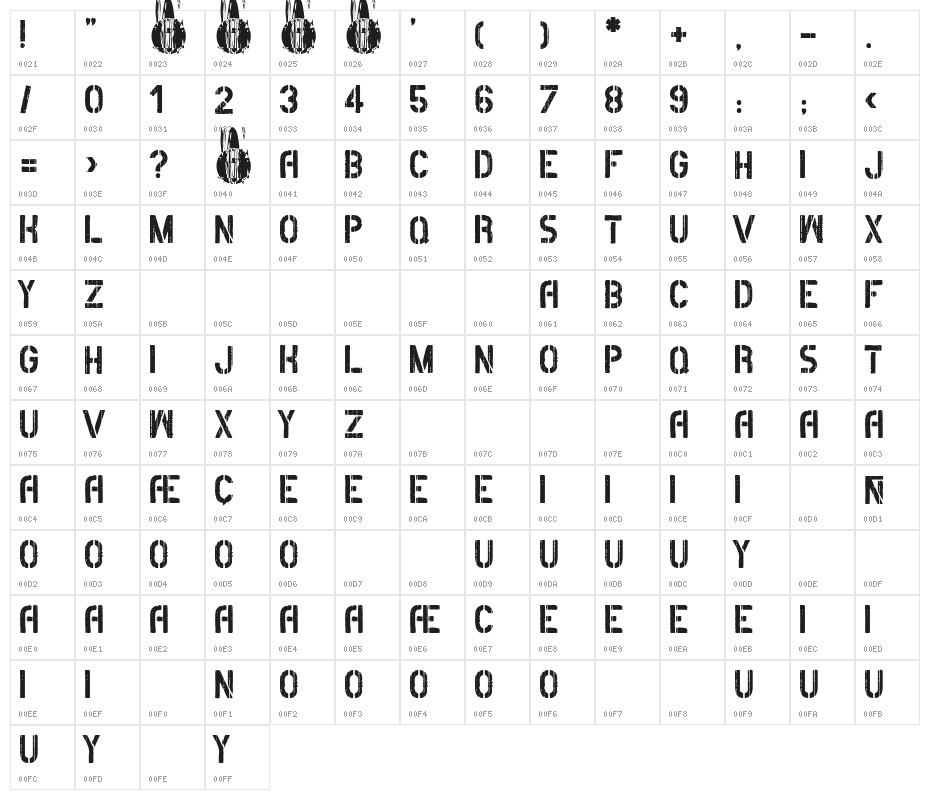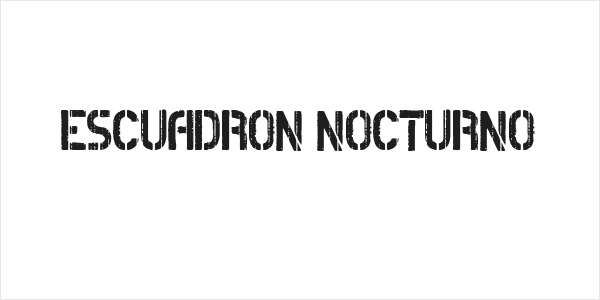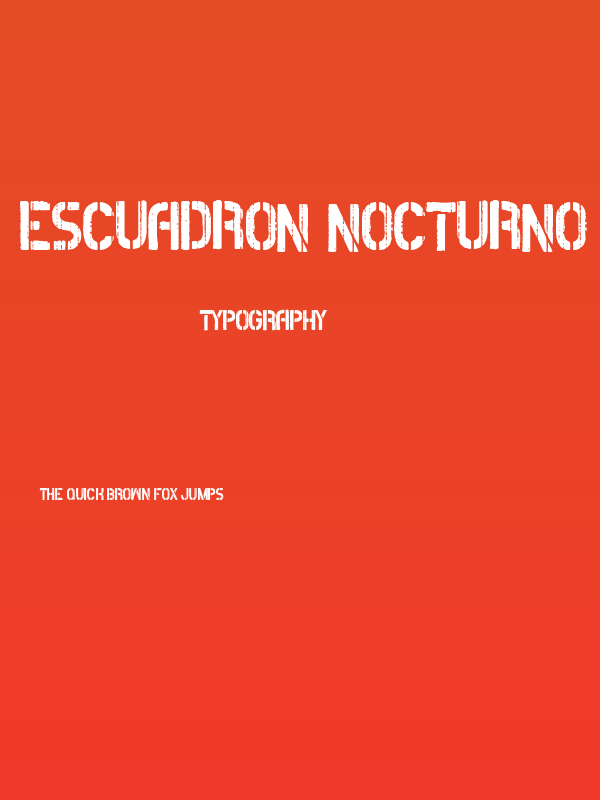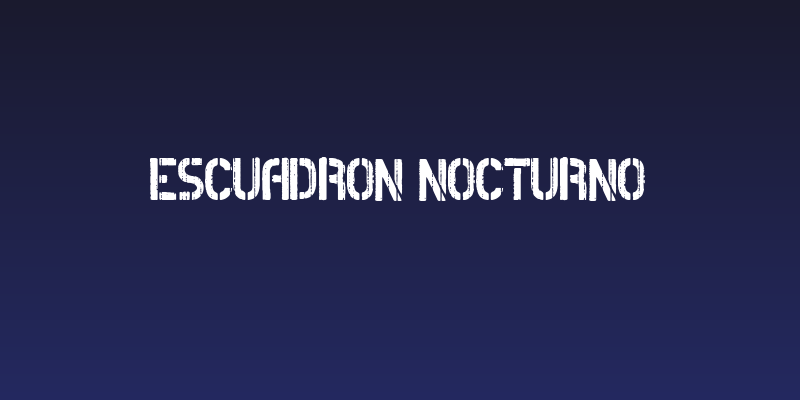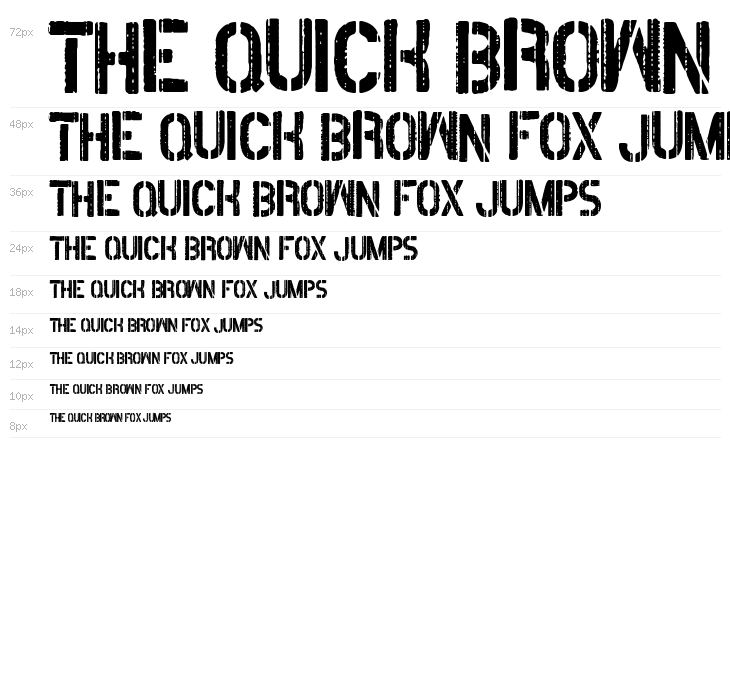
Escuadron Nocturno Font
Escuadron Nocturno Description
This font features a bold, distressed style with a rugged, textured appearance that mimics a worn or weathered look. The characters are uppercase and have a blocky, geometric structure, giving them a strong and impactful presence. The distressed effect is consistent across all characters, adding a vintage or industrial feel. The numbers and special characters maintain the same stylistic approach, ensuring uniformity throughout the font. This design is ideal for projects that require a bold statement or an edgy, gritty aesthetic.
| Proposed Projects | Ideal for posters, album covers, branding for edgy or industrial-themed products, and any design needing a vintage or gritty look. |